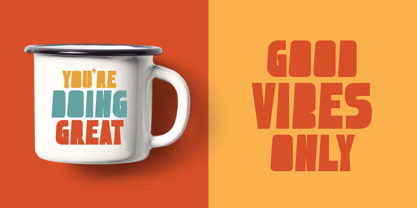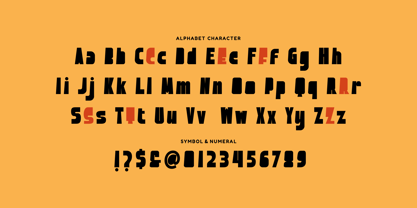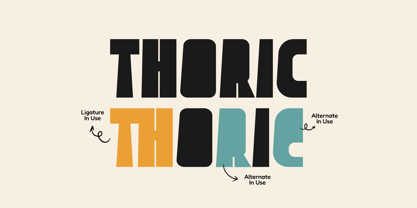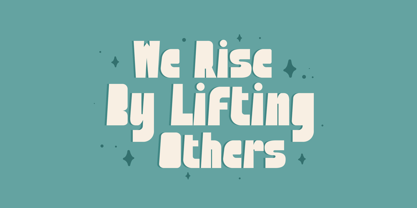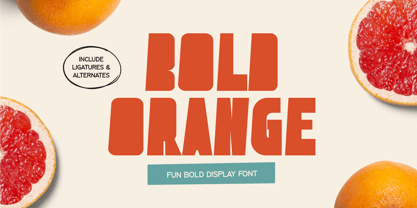
Bold Orange
by Imoodev
The Bold Orange Font Family was designed by Aulia Savira Putri and published by Imoodev. Bold Orange contains 1 styles. More about this family
Say hello to Bold Orange, a fun and funky display font that's bursting with personality! This bold, chunky typeface is designed to make a statement. Its thick, confident letterforms have a playful, slightly retro vibe, handcrafted feel that's perfect for projects needing a dose of positive energy and groovy vibes.
The characters in Bold Orange are uniquely crafted with quirky angles and soft corners, giving your text a friendly and approachable feel. It's not just a font, it's a toolkit for creativity.
Whether you're designing vibrant social media graphics, impactful posters, cheerful branding, or fun merchandise, mugs, children's products, and greeting cards.
Designers: Aulia Savira Putri
Foundry: Imoodev